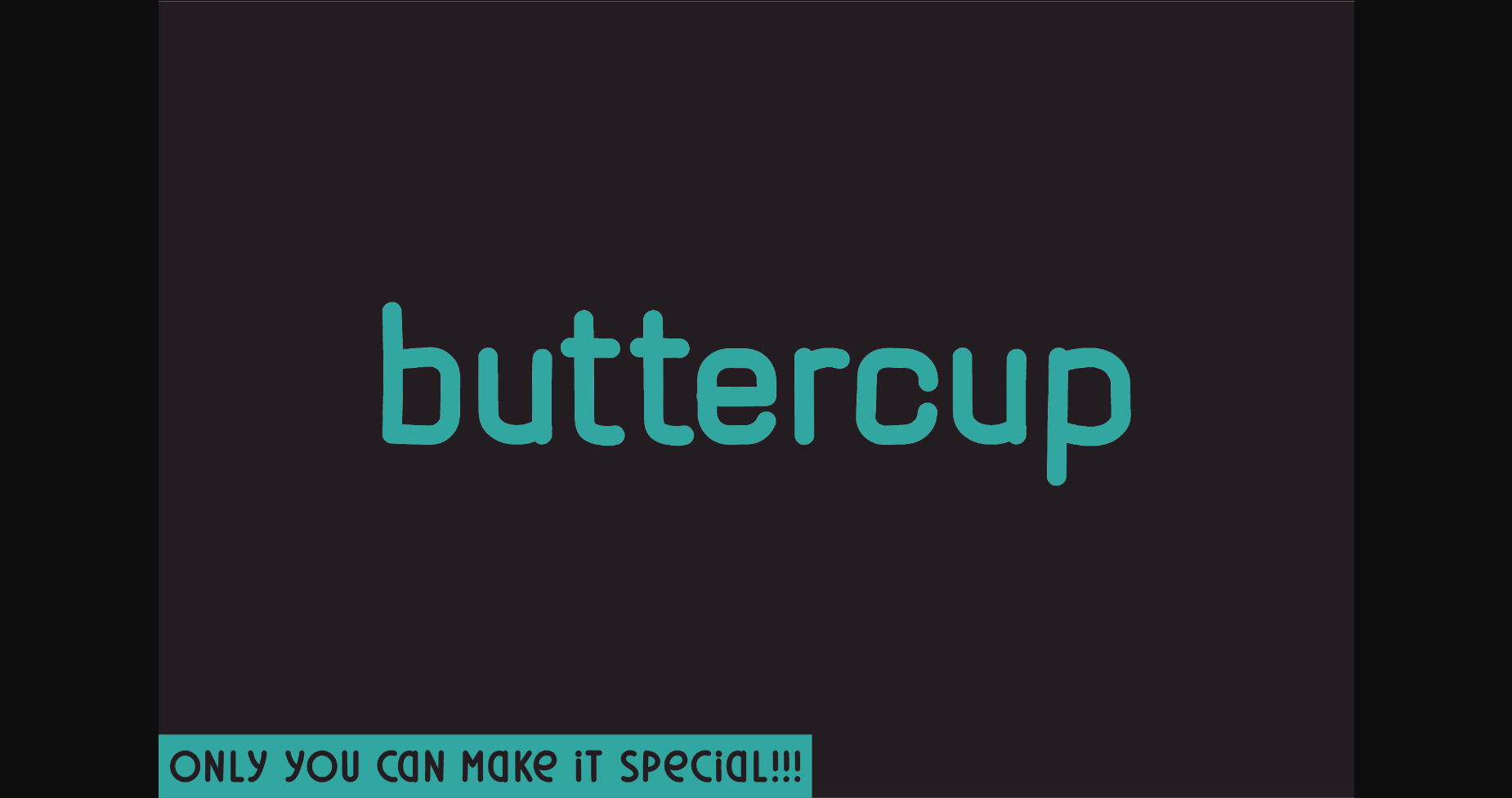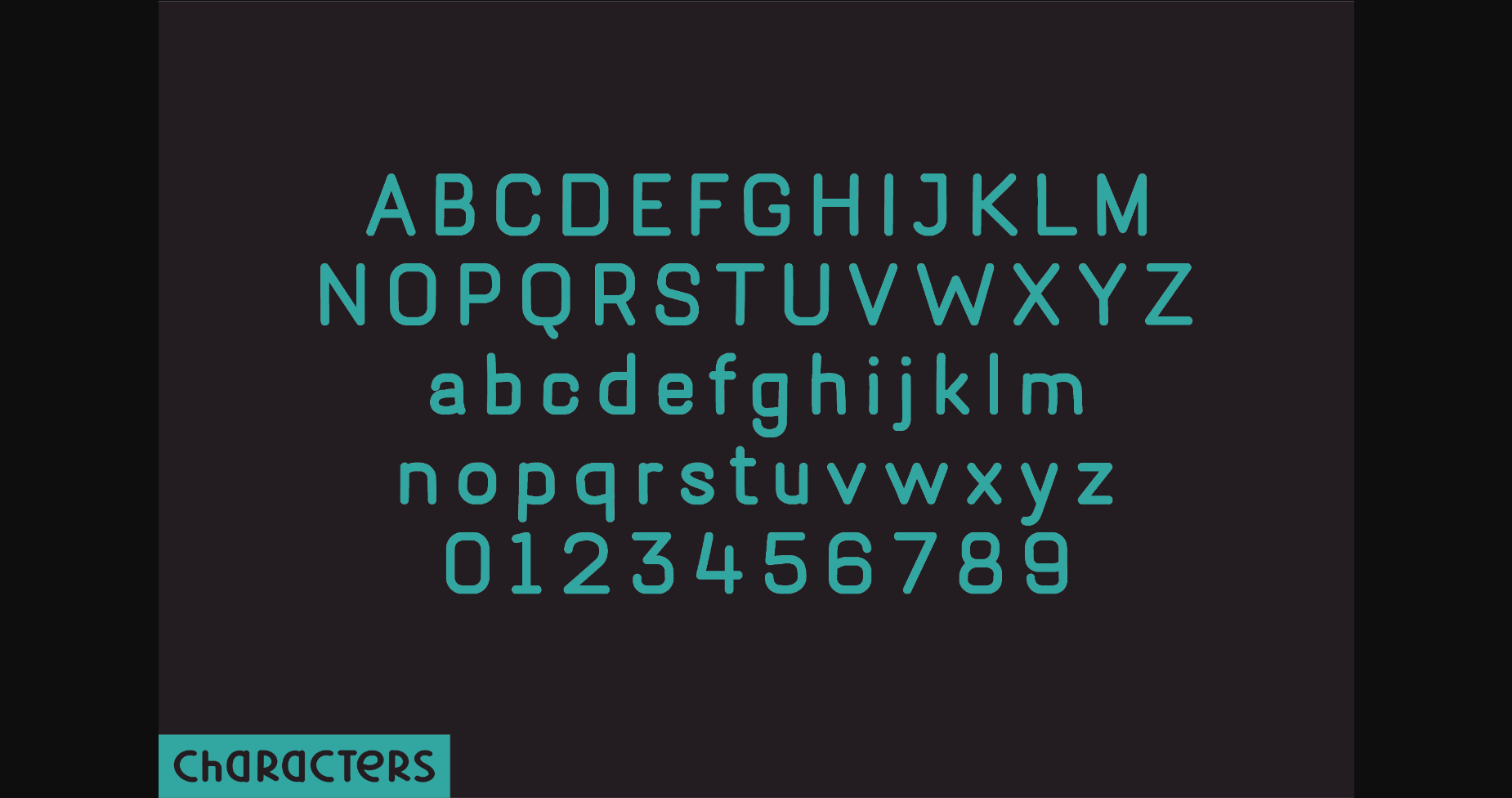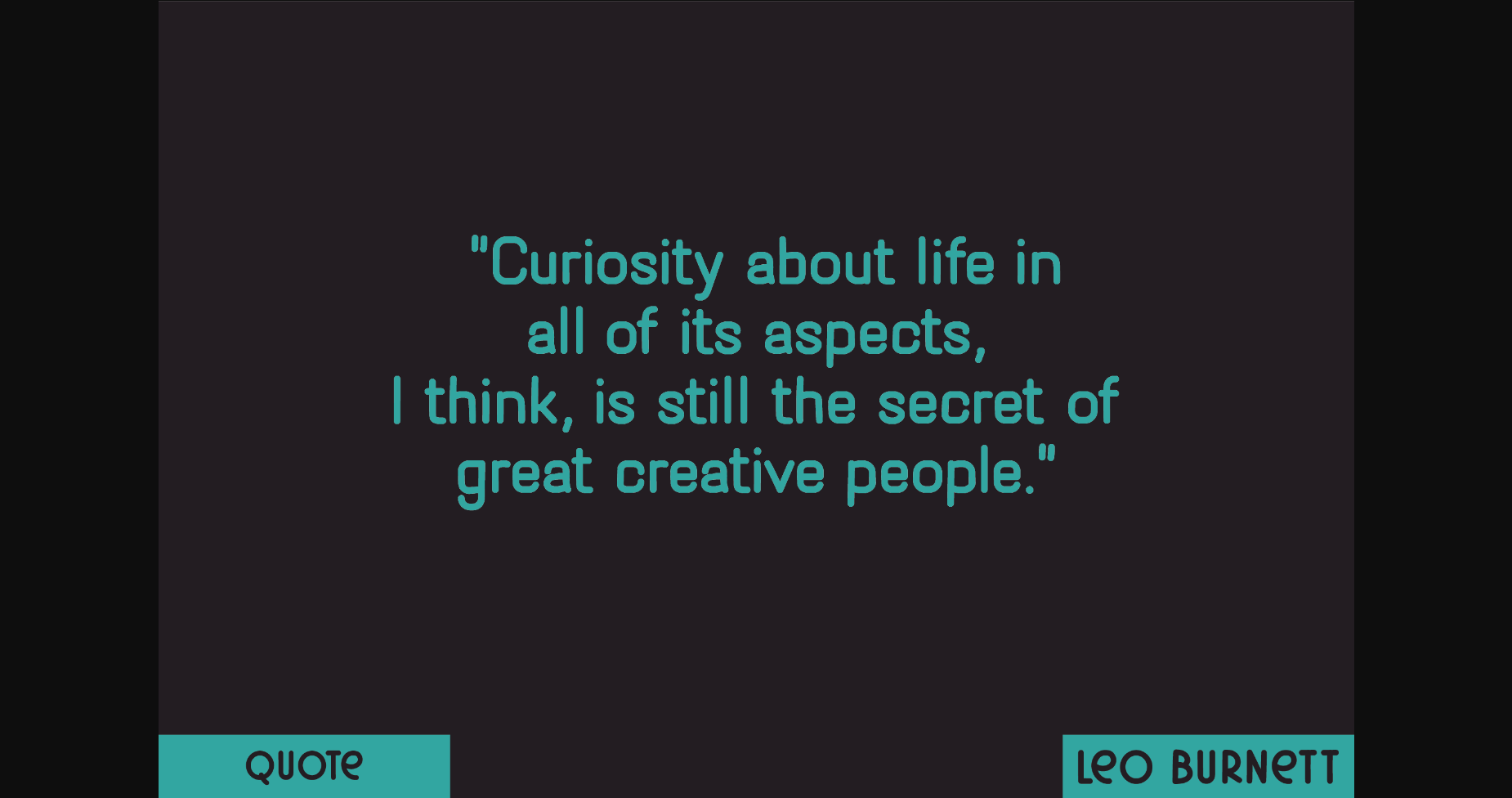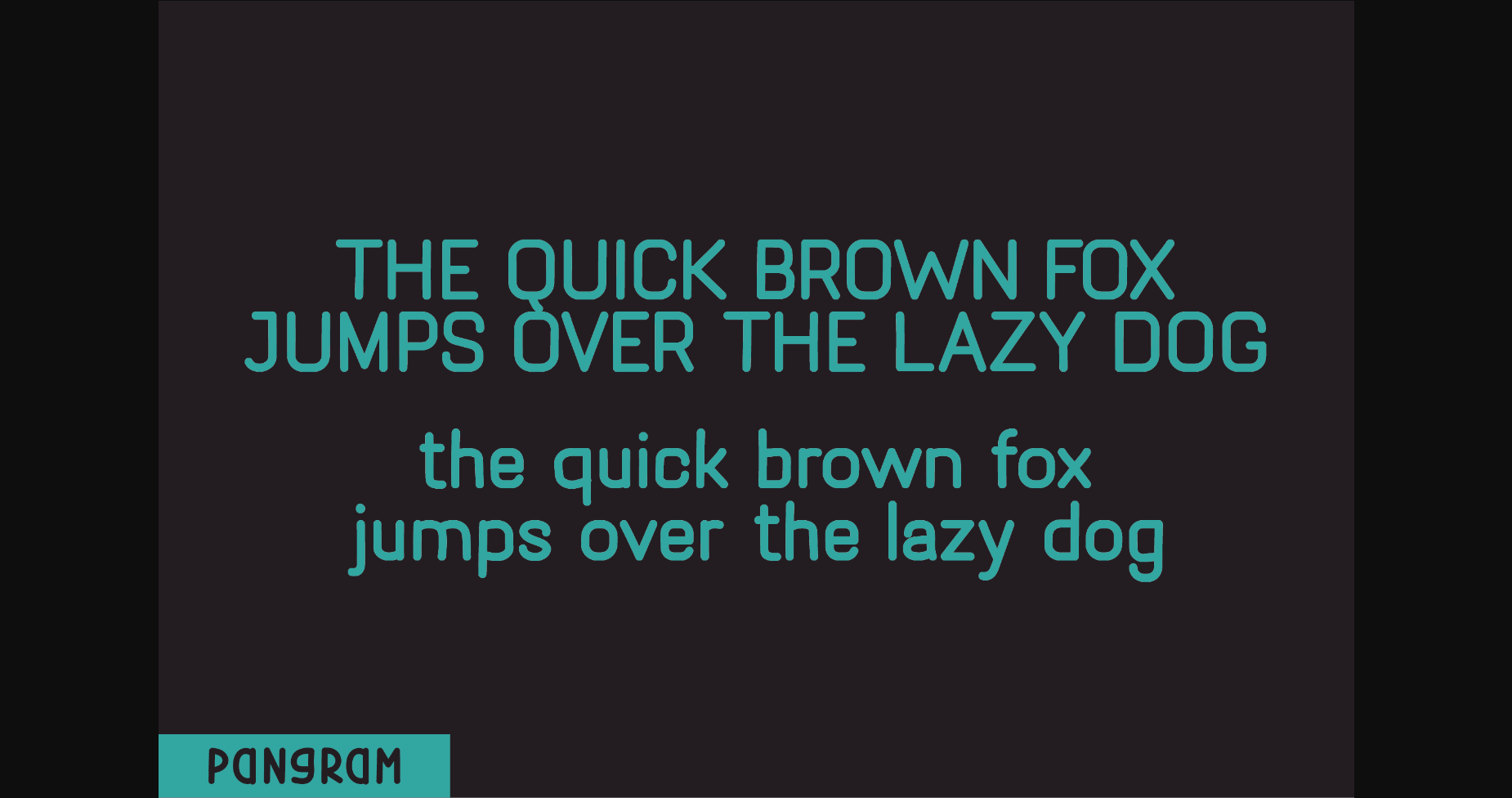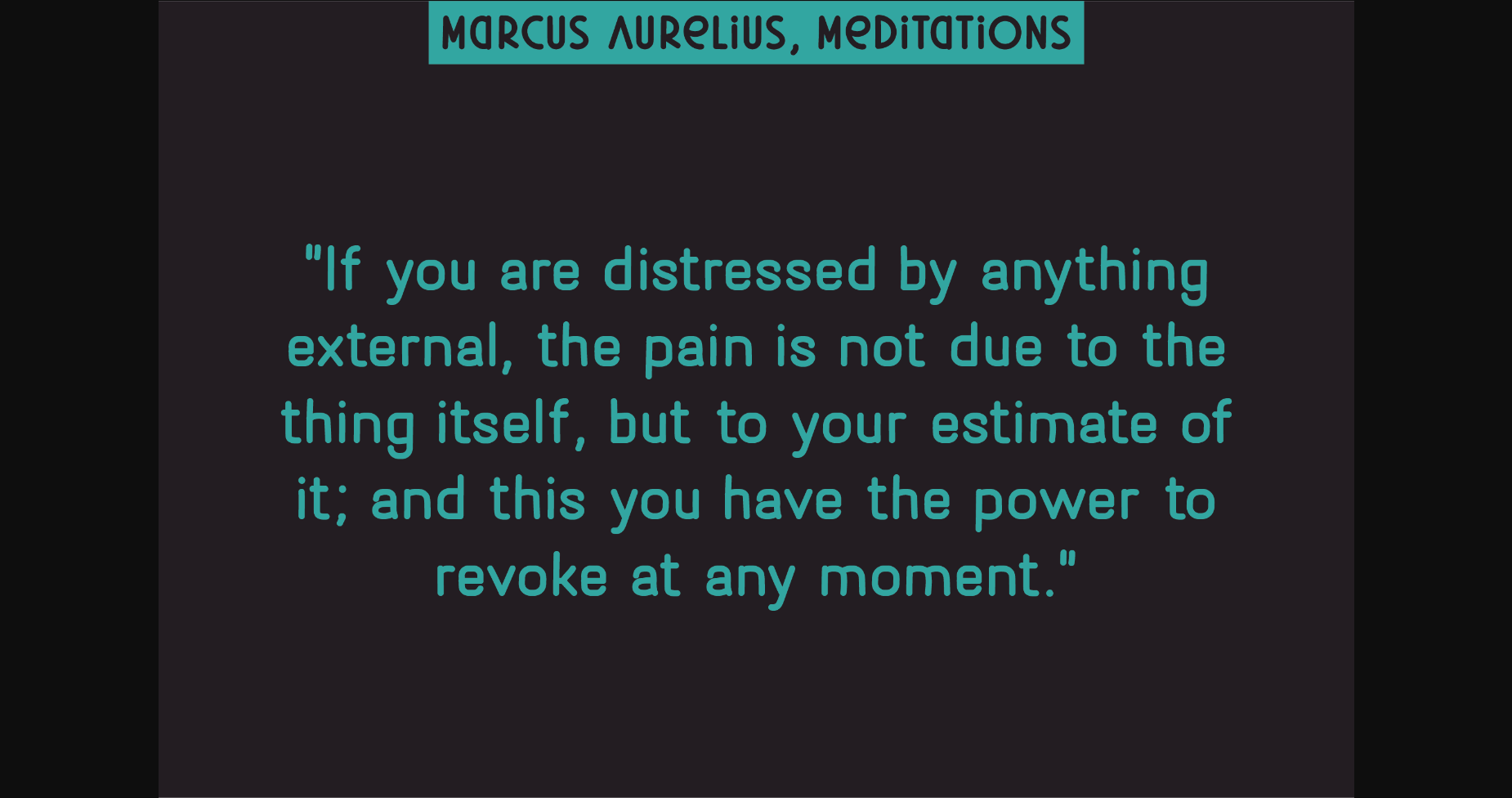
HomeSans Serif FontsButtercup Font Sans Serif Fonts Buttercup Font FacebookXPinterestWhatsApp 1 of 7 ... Buttercup Font Poster 2... Buttercup Font Poster 3... Buttercup Font Poster 4... Buttercup Font Poster 5... Buttercup Font Poster 6... Buttercup Font Poster 7... About Buttercup Font Buttercup is a bold and unique sans serif font, perfect for quotes, notes, tees, logos, social media and any design that requires a classic touch. DOWNLOAD NOW People also explored Little Princess Font Chilling Saturday Font Felmay Font Way Kambas Font Mommy Monogram Font Cosbycorwin Script Font I Love Dad Monogram Font Satimya Font Sameday Font 429 0 TagsButtercup Font Previous articleChickadee FontNext articlePrecious Font LEAVE A REPLY Cancel reply Comment: Please enter your comment! Name:* Please enter your name here Email:* You have entered an incorrect email address! Please enter your email address here Website: Save my name, email, and website in this browser for the next time I comment. Personal Use Free Huntry Personal Use Free Read more about this font Lumber Personal Use Free Read more about this font Oatmeal Personal Use Free Read more about this font Shelly Personal Use Free Read more about this font BLOG To increase your work productivity, choose the most readable fonts. In today's fast-paced work environment, where digital communication and information consumption are integral to our daily routines, the choice of fonts can significantly impact... Where to Buy American Fonts Online in 2024 Free Fonts Risk: Why Free Fonts Can Be Dangerous for Designers Transform Your Website: Elevate Your Typography with 7 Best Web Font Generators